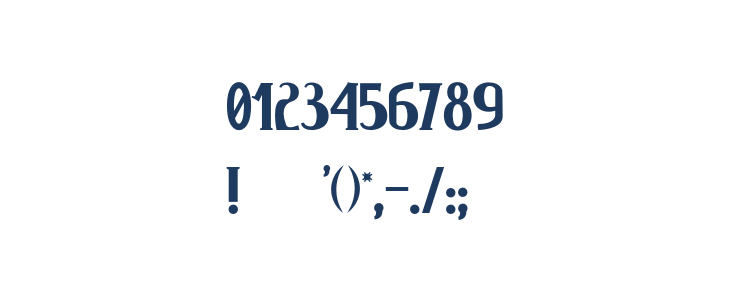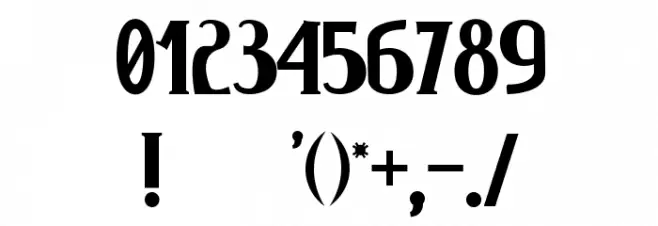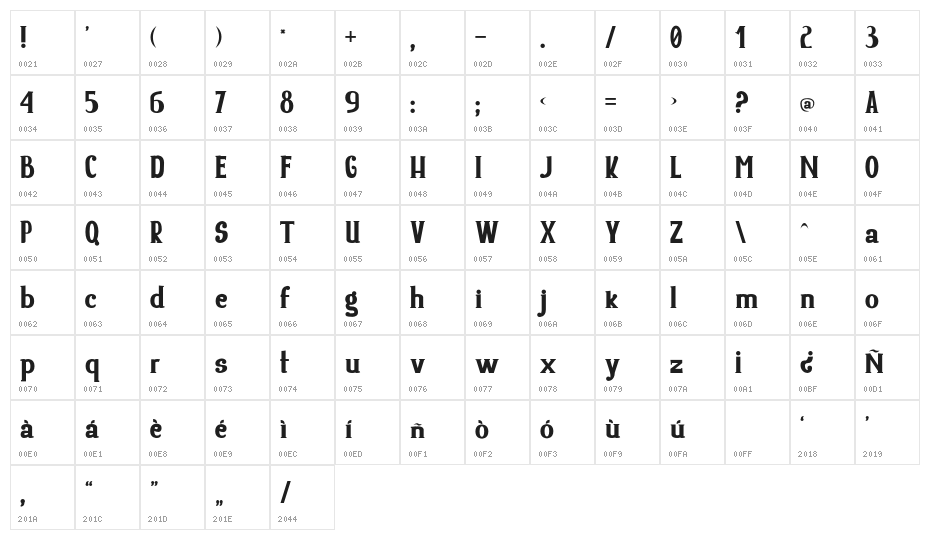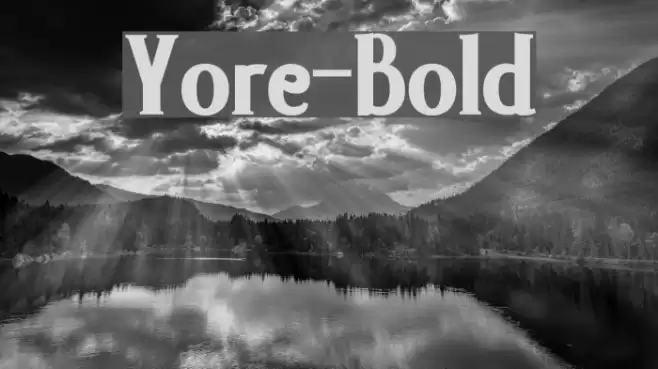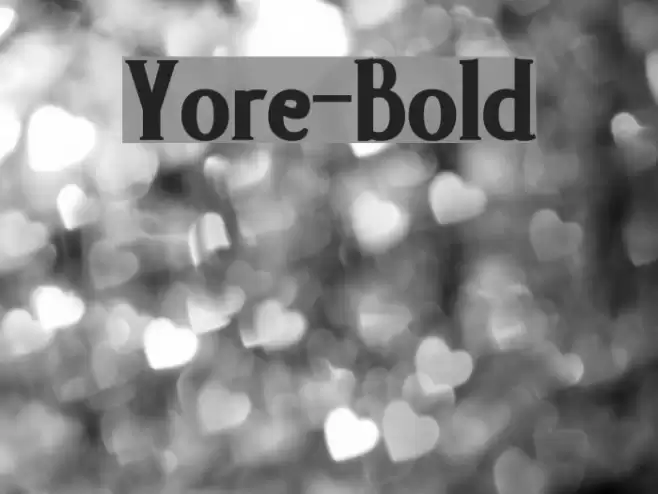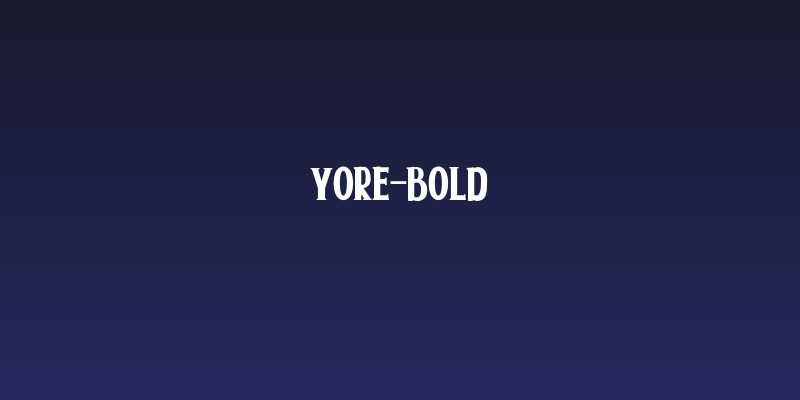
Yore-Bold Font
Yore-Bold Description
This font features a bold and dynamic style with a strong presence. The uppercase letters are characterized by their thick strokes and slightly condensed form, giving them a robust and impactful appearance. The lowercase letters maintain a consistent weight, complementing the uppercase with a harmonious balance. Numbers are designed with the same boldness, ensuring readability and uniformity across different uses. Special characters are crafted with attention to detail, maintaining the overall aesthetic of the font. The font's design is suitable for making statements, with its bold strokes and slightly vintage flair.
| Proposed Projects | This font is perfect for projects that require a strong visual impact, such as posters, headlines, branding, and packaging. Its bold nature makes it suitable for logos and promotional materials where readability and style are paramount. |